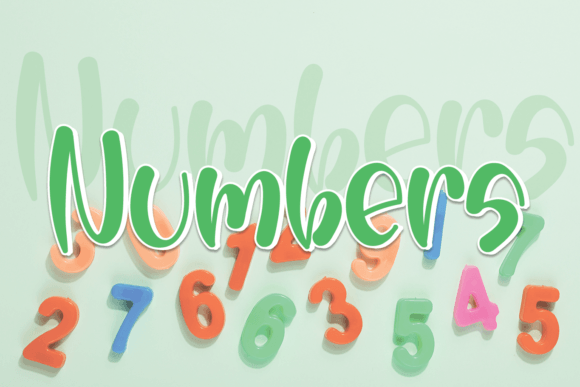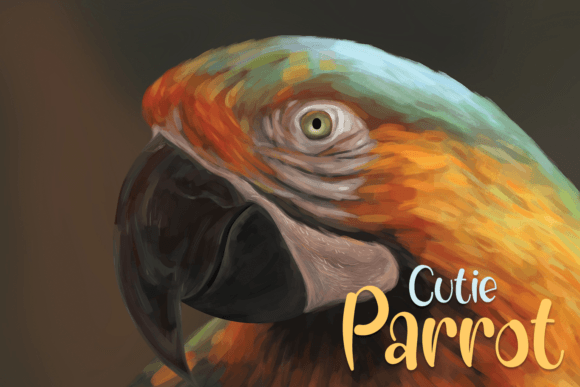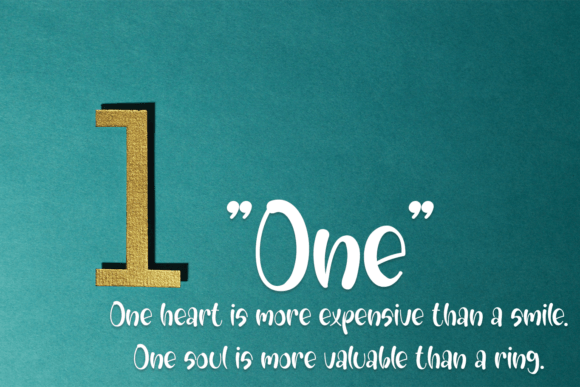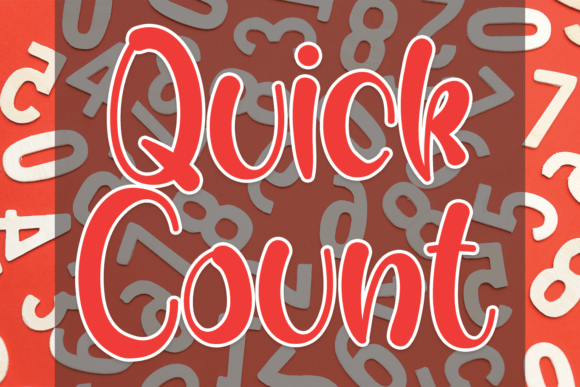
Charlie Font
About Charlie Font
“Charlie” is a beautiful and refined handwritten font that exudes a sense of elegance and modernity. Its classy and contemporary style makes it a versatile choice for a wide range of design applications. Whether you’re working on logos, branding, invitations, stationery, wedding designs, social media posts, or any project that calls for a refined and stylish font, “Charlie” is a valuable addition to your font collection.
The font’s charm lies in its ability to convey a sense of sophistication and creativity. Its clean and distinct characters exude a timeless style, making it suitable for projects where you want to create a visually appealing and tasteful impression. “Charlie” allows you to add a touch of elegance and modernity to your content.
By incorporating “Charlie” into your projects, you can elevate them with a sense of refinement and style. Its versatility and contemporary appeal make it a reliable choice for a wide range of creative endeavors. Whether you’re designing for print or digital media, “Charlie” can enhance the visual impact of your work.
In summary, “Charlie” is a valuable font that brings elegance and modernity to your creative projects. Its clean and distinct script style is suitable for various applications, and its refined design sets it apart. With “Charlie” in your font library, you can create designs that exude a sense of sophistication and contemporary style, leaving a lasting impression.